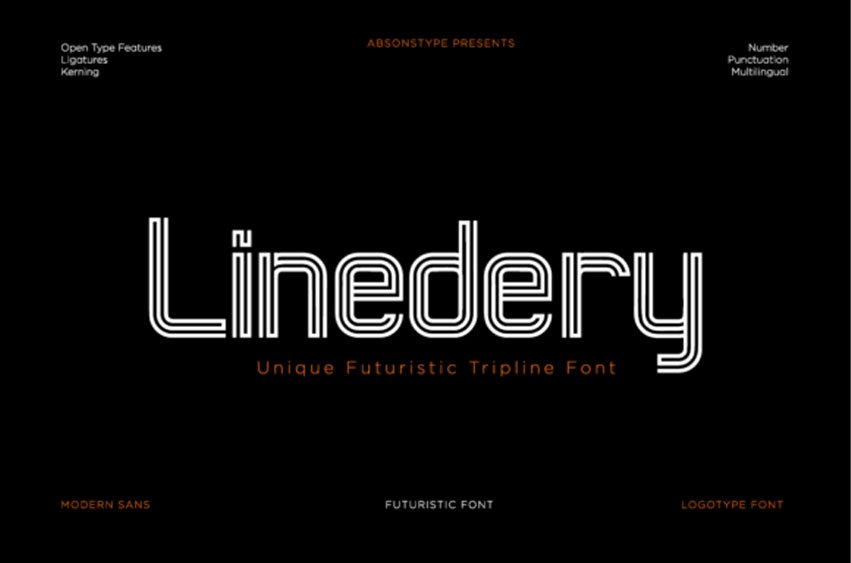
Lindery Font is a unique and eye-catching display typeface defined by its three-line stroke design, giving it a bold, futuristic character unlike any other. Each letterform is crafted with precision, featuring triple-line constructions that create a sense of depth, movement, and modernity. This distinctive style makes Lindery an excellent choice for projects that demand a creative and forward-thinking aesthetic.
Perfect for headlines, logos, posters, digital art, and branding materials, Lindery instantly captures attention while conveying innovation and style. Its futuristic essence makes it ideal for use in technology, sci-fi, fashion, and experimental design themes.
Add a touch of innovation and uniqueness to your designs with Lindery – a futuristic font that dares to stand out.